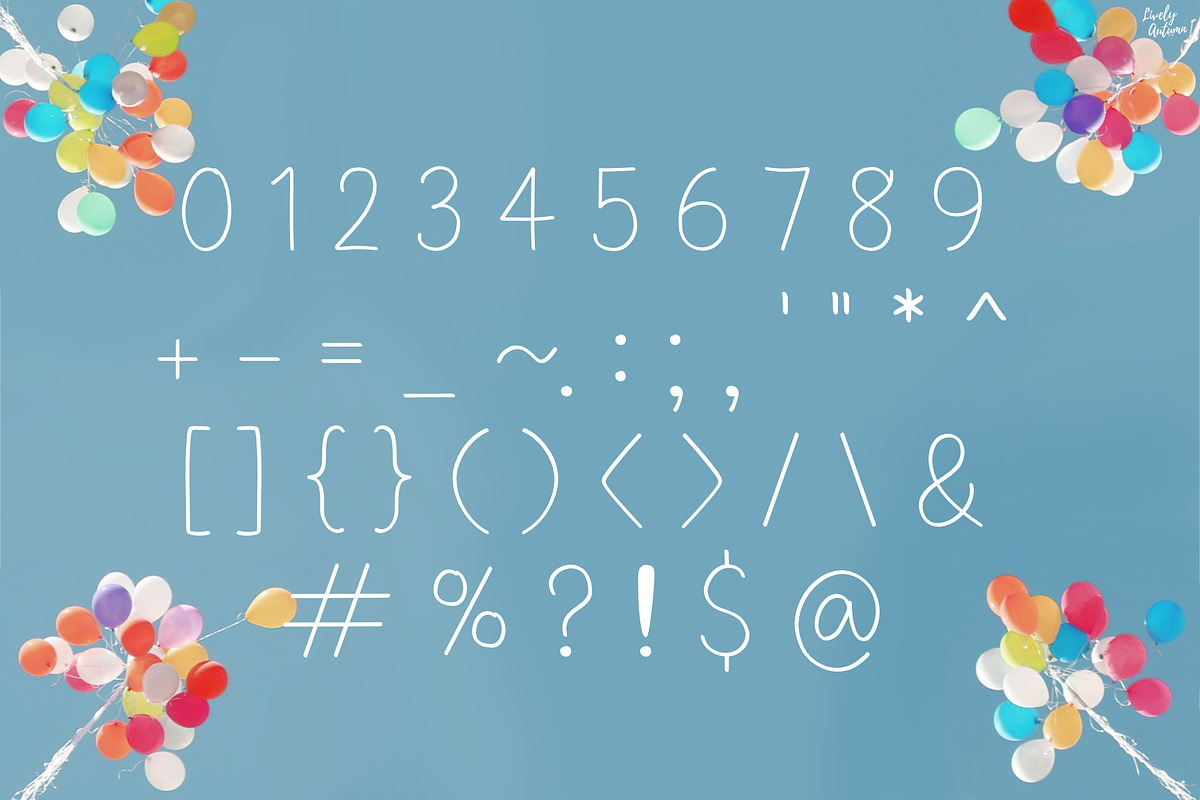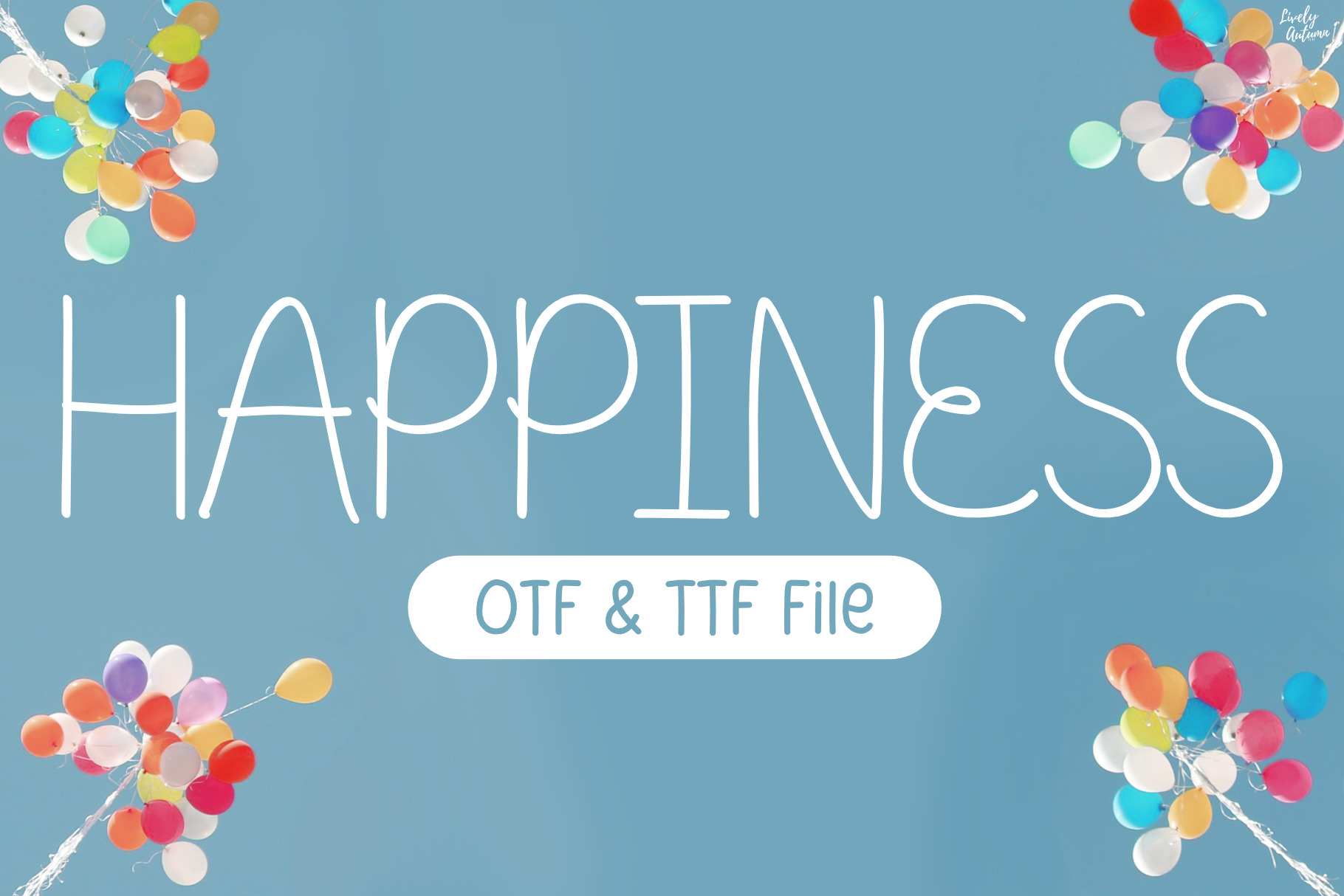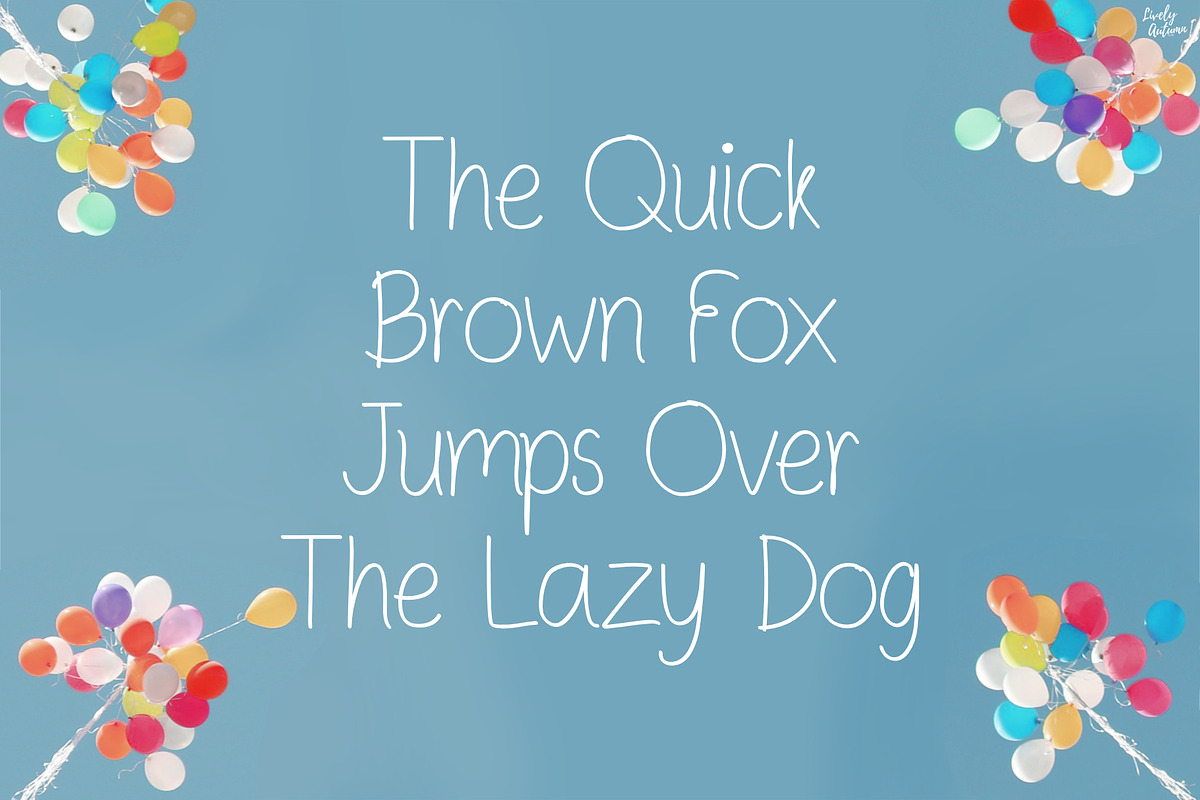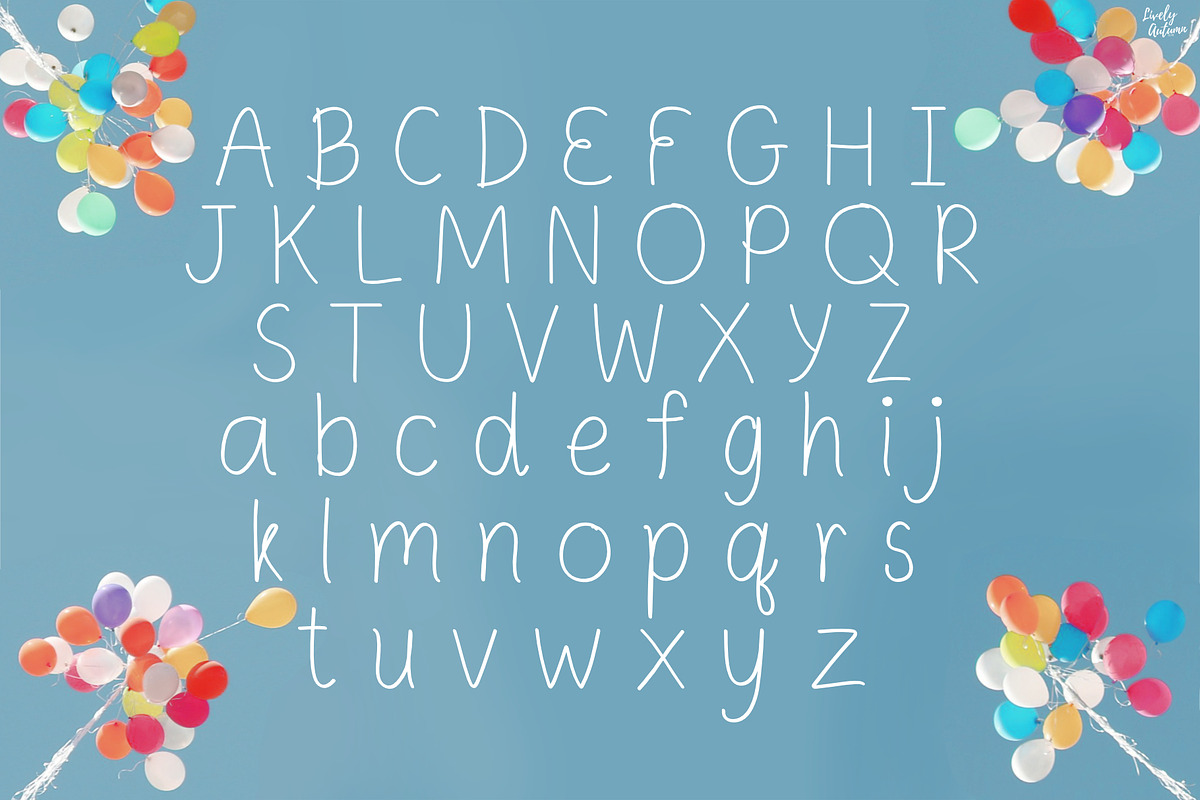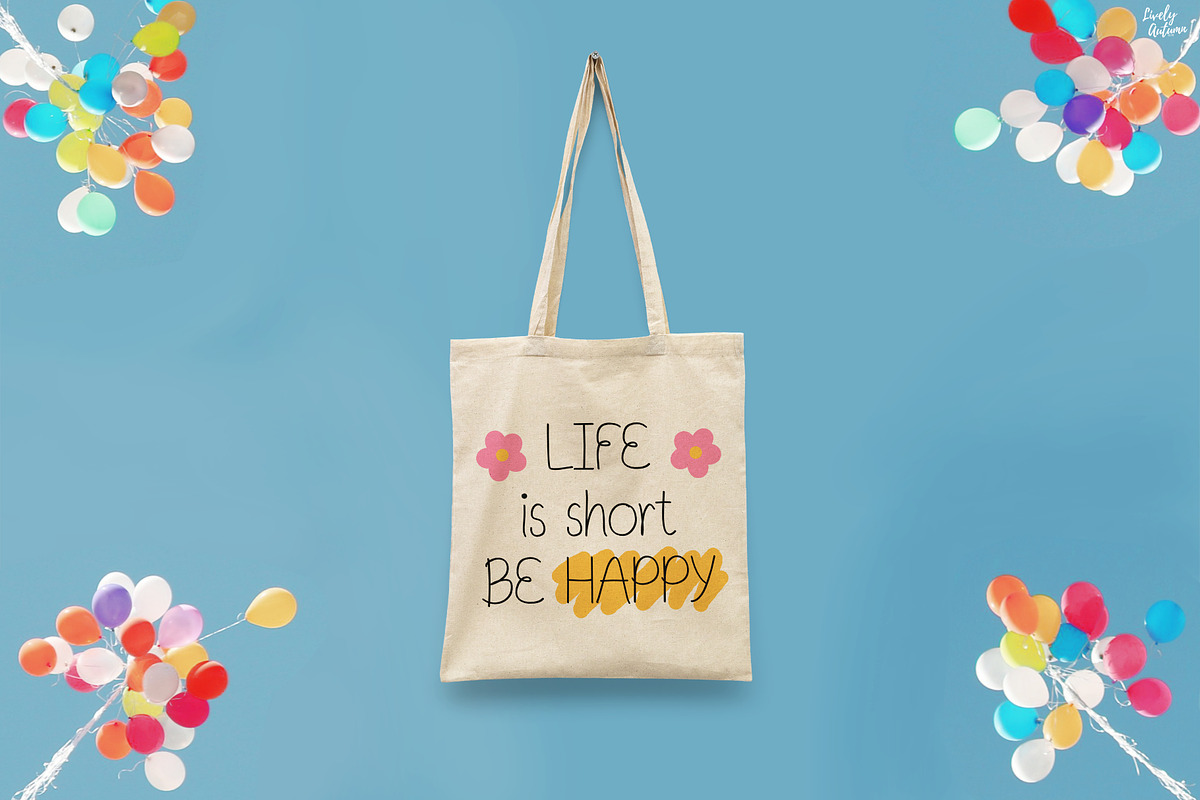
Happiness | Handwriting Font
Happiness is a simple handwritten sans serif font. Perfect for your personal projects and various projects. From invitations to posters, social media graphics, journals, stickers and much more.